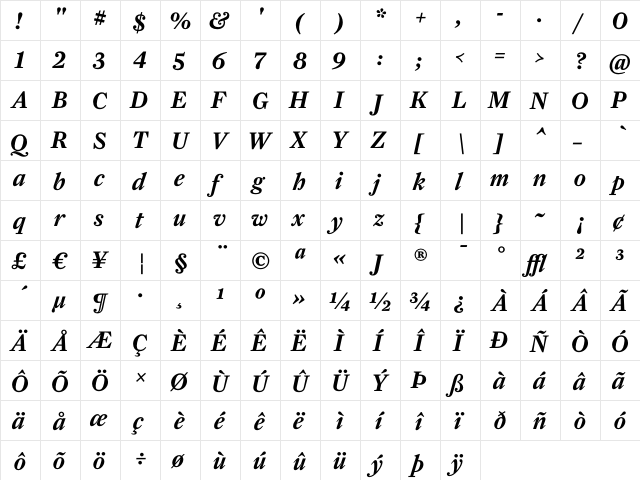
FarnhamText-SemiItalLF Regular
Design Context for FarnhamText-SemiItalLF Typeface
FarnhamText-SemiItalLF offers clean, dependable letterforms without strong stylistic allegiance, making it a practical choice for designers who need flexibility.